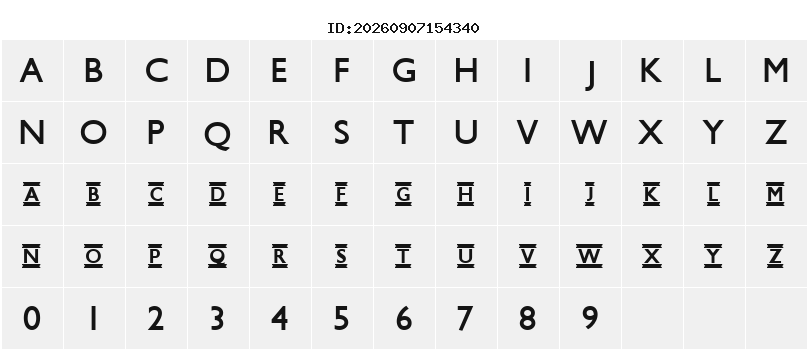
Underground.ttf is a modern, elegant sans-serif font designed for ultimate readability and visual harmony. Perfect for branding, headlines, web design, and print materials.